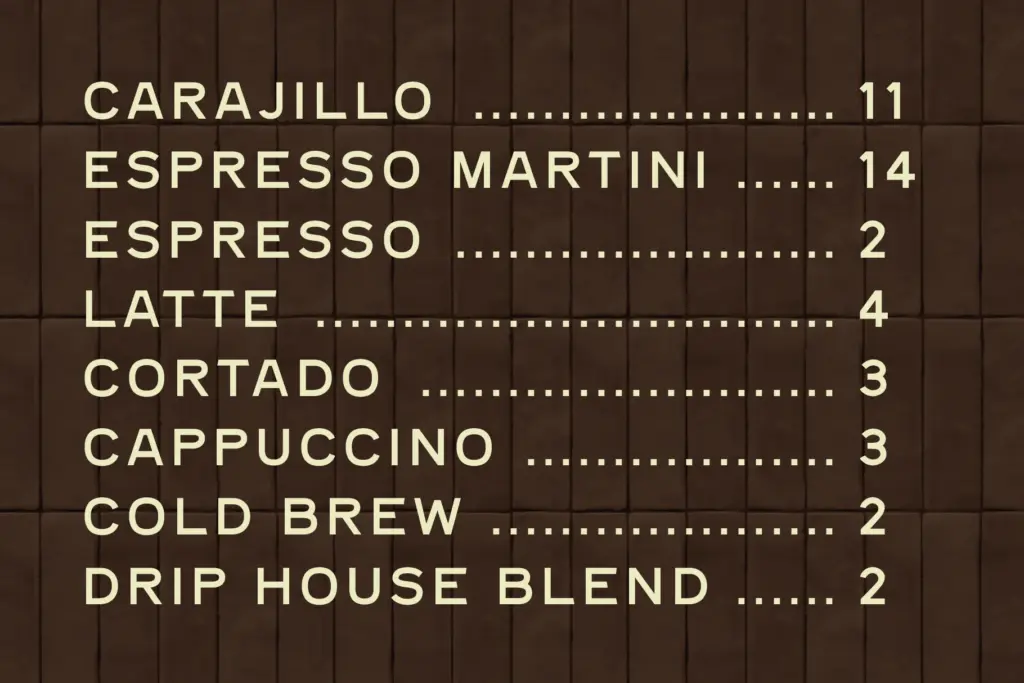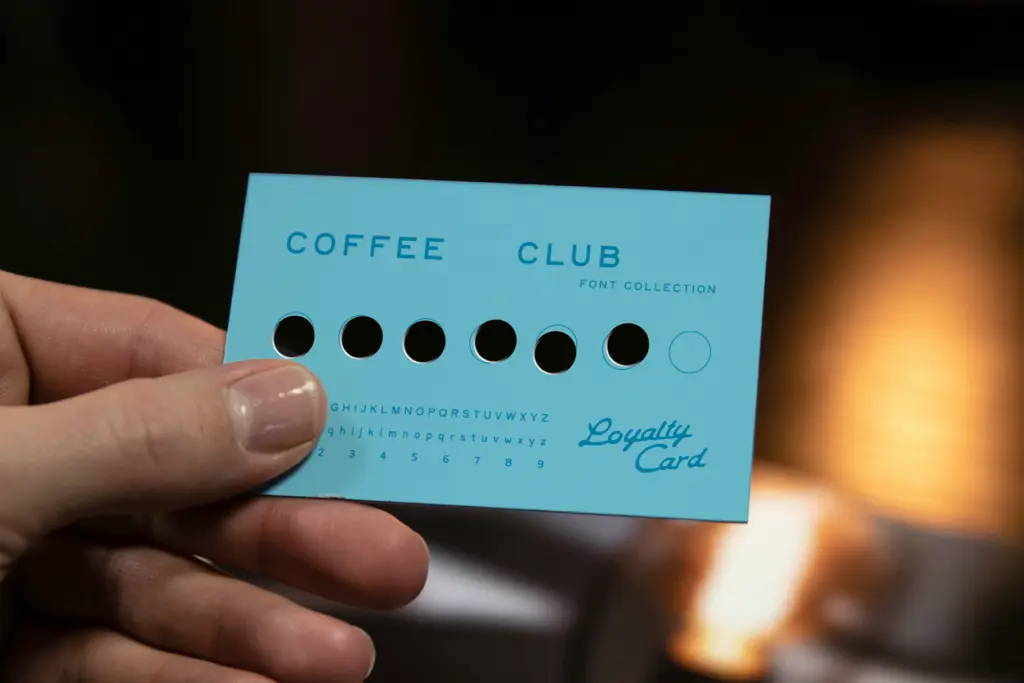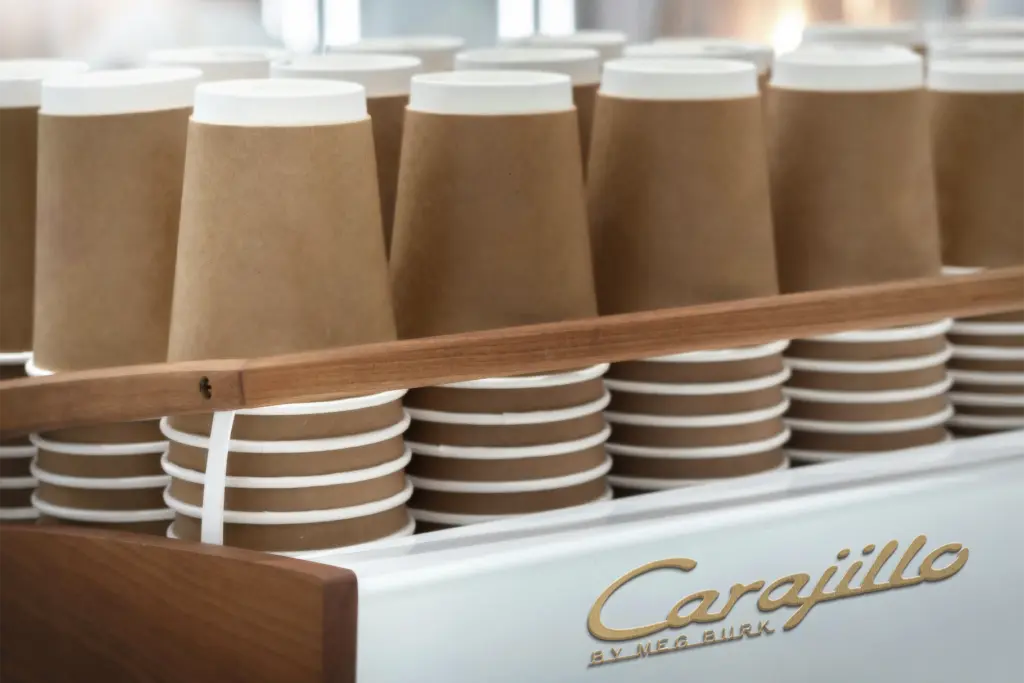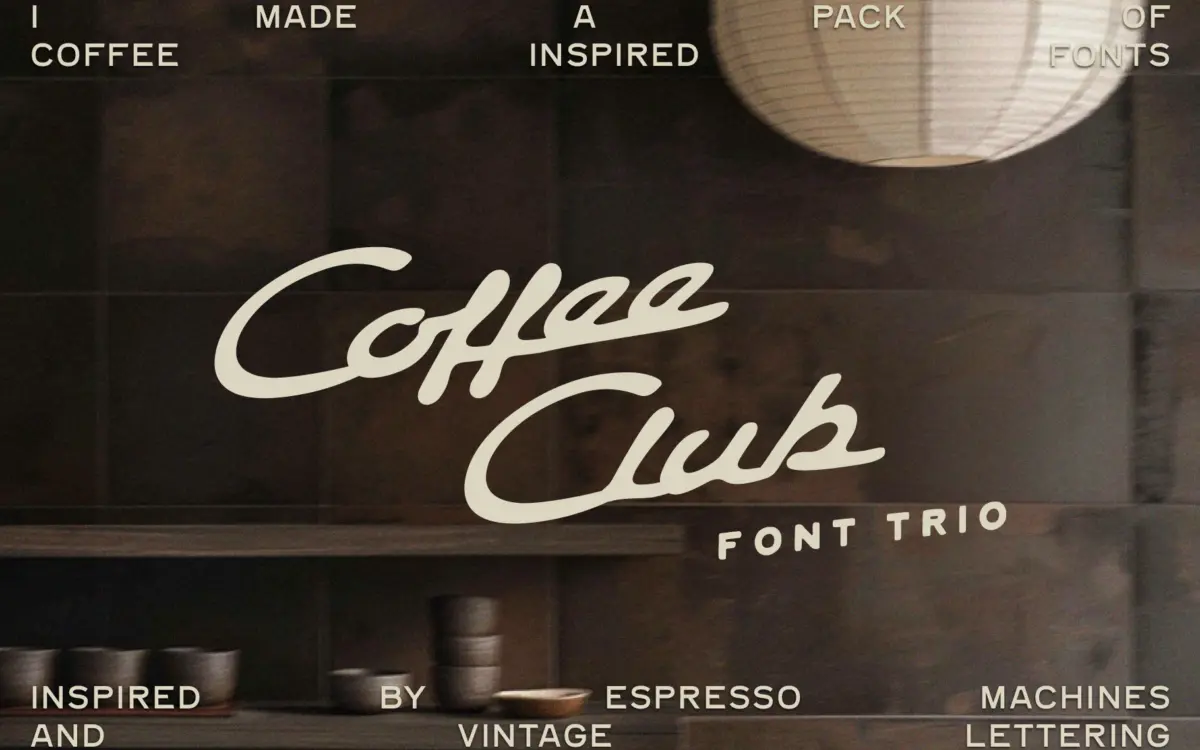
Carajillo takes its cues from the engraved metal emblems bolted onto vintage espresso machines and old automotive badges — the kind of lettering that had to read well cast in metal at a small scale, not drawn freely with a brush. That lineage shows. The script has a formal, slightly mechanical bounce rather than the loose, ink-pooling energy of a lettering-pen script. Strokes are consistent in weight with contrast kept deliberately narrow, and the connections between letters favour clean junctions over exaggerated swashes. It reads as engraved rather than penned, which is a distinct and useful register within the crowded script category.
The collection isn’t just the script, though. It ships with Cappuccino, a structured sans with five variations, and Cowboy, a rougher hand-sans. Cappuccino is the more disciplined of the two: even widths, squared-off proportions, built for setting alongside Carajillo without competing with it. Cowboy is looser and more casual, closer to marker lettering than a grid-built sans, and it sits oddly between the polish of the other two — useful as a texture, less useful as a structural partner.
Carajillo’s script covers the standard upper and lowercase alphabet plus the punctuation and numerals you’d expect from a branding-oriented script, with ligatures available to smooth over awkward letter pairs — a necessity in any connecting script, since without them certain combinations will look pinched or overlapped. The emblem heritage means the capitals in particular are built to sit inside a circular or oval badge shape without needing much adjustment, which is a real point in its favour if that’s the job at hand.
Cappuccino’s five variations give you some flexibility in weight or width without leaving the family, which matters more than it sounds — a lot of script-plus-sans bundles ship with a single companion weight and then buckle the moment you need a hierarchy of more than two levels. Here you at least have room to build a menu or a label with some internal contrast. Cowboy, by comparison, feels like a bonus rather than a considered third voice; it’s fine as an accent but I wouldn’t build a system around it.
The obvious home for this is exactly what it was drawn for: coffee shop branding, cafe signage, small-batch packaging, anything trading on a retro, hand-tooled feel. Carajillo works well as a wordmark or emblem centrepiece — set large, given room, ideally inside a badge or circular lockup — and Cappuccino earns its keep on menu boards, ingredient lists, and any supporting copy that needs to stay legible at smaller sizes.
It’s less suited to long-form text or anywhere the script needs to run at body-copy size; like most emblem-derived scripts, Carajillo is built for short bursts — a name, a word, a short phrase — not a paragraph. Wedding stationery and invitation work could borrow it for a heading treatment, though it reads more masculine and mechanical than the softer scripts usually chosen for that market. Treat it as a logo and packaging tool first, and a general script second.
- The engraved, nameplate-derived letterforms give it a distinct personality apart from typical brush scripts.
- Capitals are shaped to sit naturally inside circular or oval badge lockups.
- Cappuccino's five variations provide real hierarchy options for supporting text.
- Cowboy, the third typeface in the bundle, feels like a mismatched addition rather than a considered companion.
- The script is built for short bursts of display type and isn't intended for longer text settings.
Carajillo is a well-observed take on engraved emblem lettering, distinct from the usual brush-script crowd, and it does its intended job — badges, wordmarks, cafe branding — genuinely well. The bundled sans is useful, the bundled hand-sans less so, and none of the three is built for anything beyond short, display-scale settings.